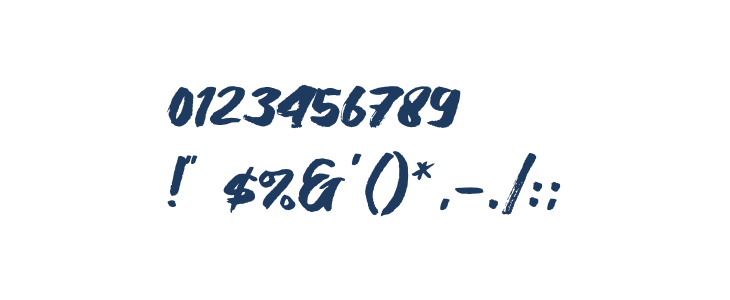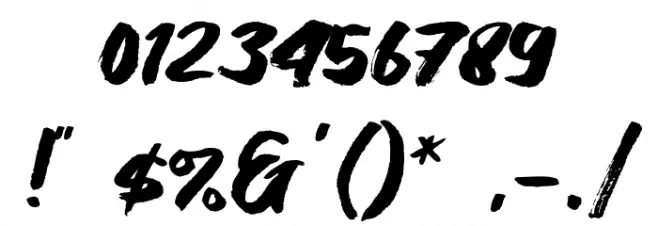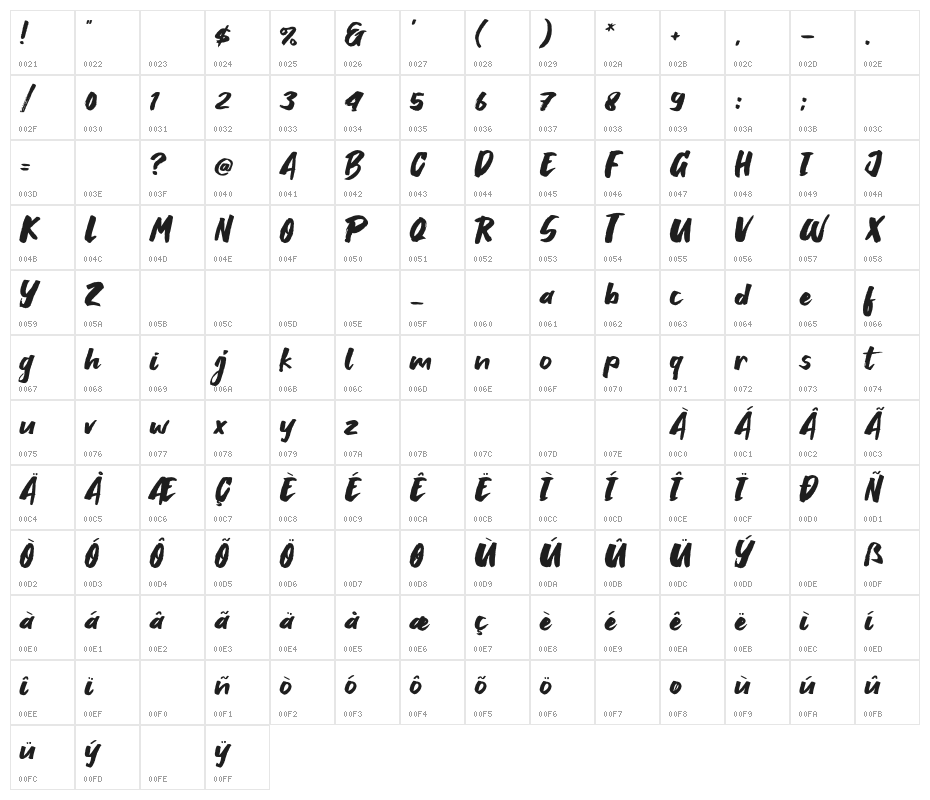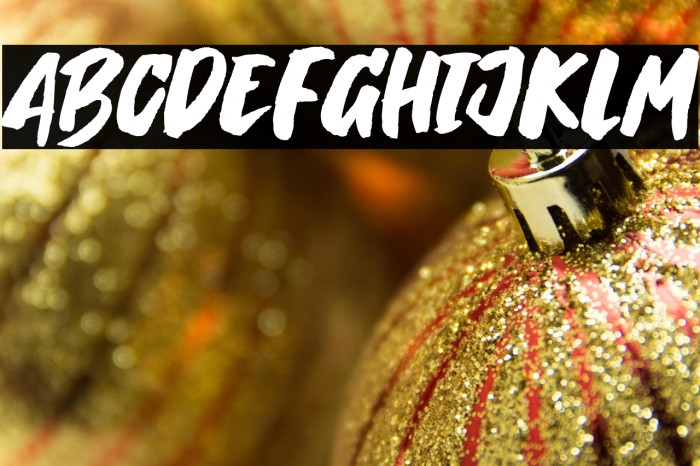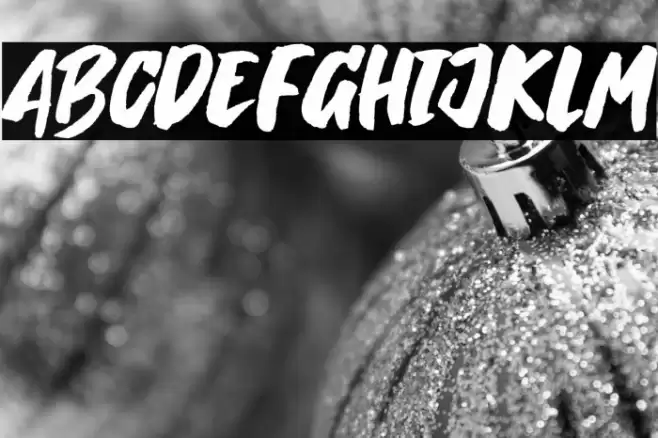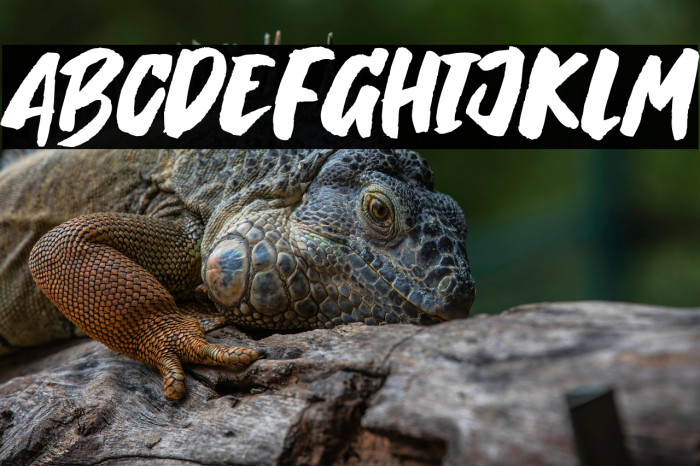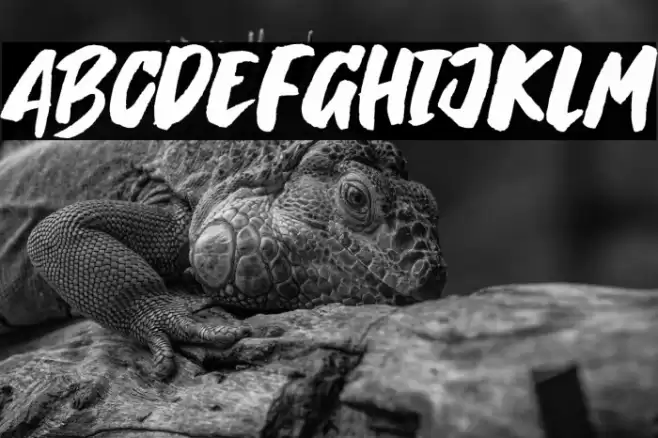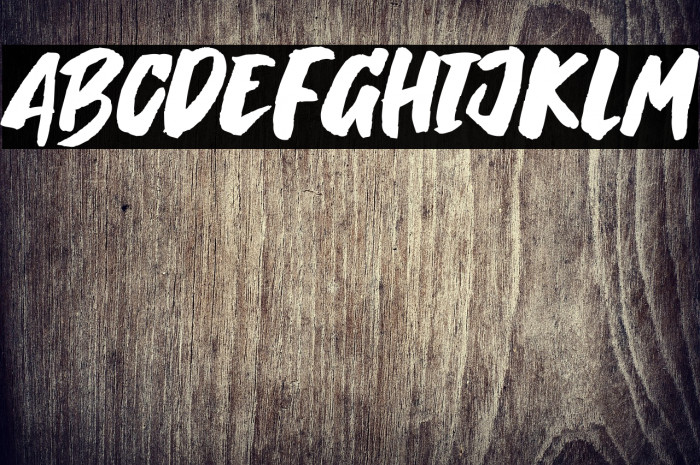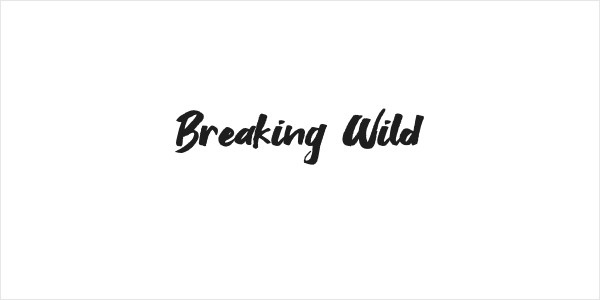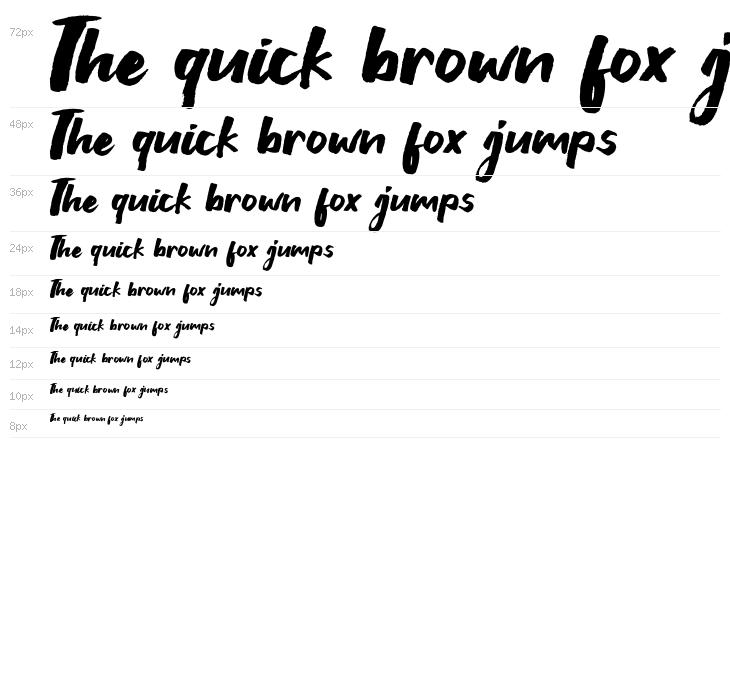
Breaking Wild Font
Breaking Wild Description
This font exudes a bold, energetic vibe with its brush-style strokes and dynamic flow. The uppercase letters are robust and assertive, while the lowercase characters maintain a consistent, lively rhythm. Numbers and special characters follow the same expressive style, making them stand out. The overall design is reminiscent of hand-painted signage, offering a sense of movement and spontaneity. Its thick strokes and irregular edges contribute to a raw, organic feel, perfect for projects that require a touch of creativity and boldness.
| Proposed Projects | Ideal for branding, posters, album covers, and any creative project needing a bold, artistic touch. |